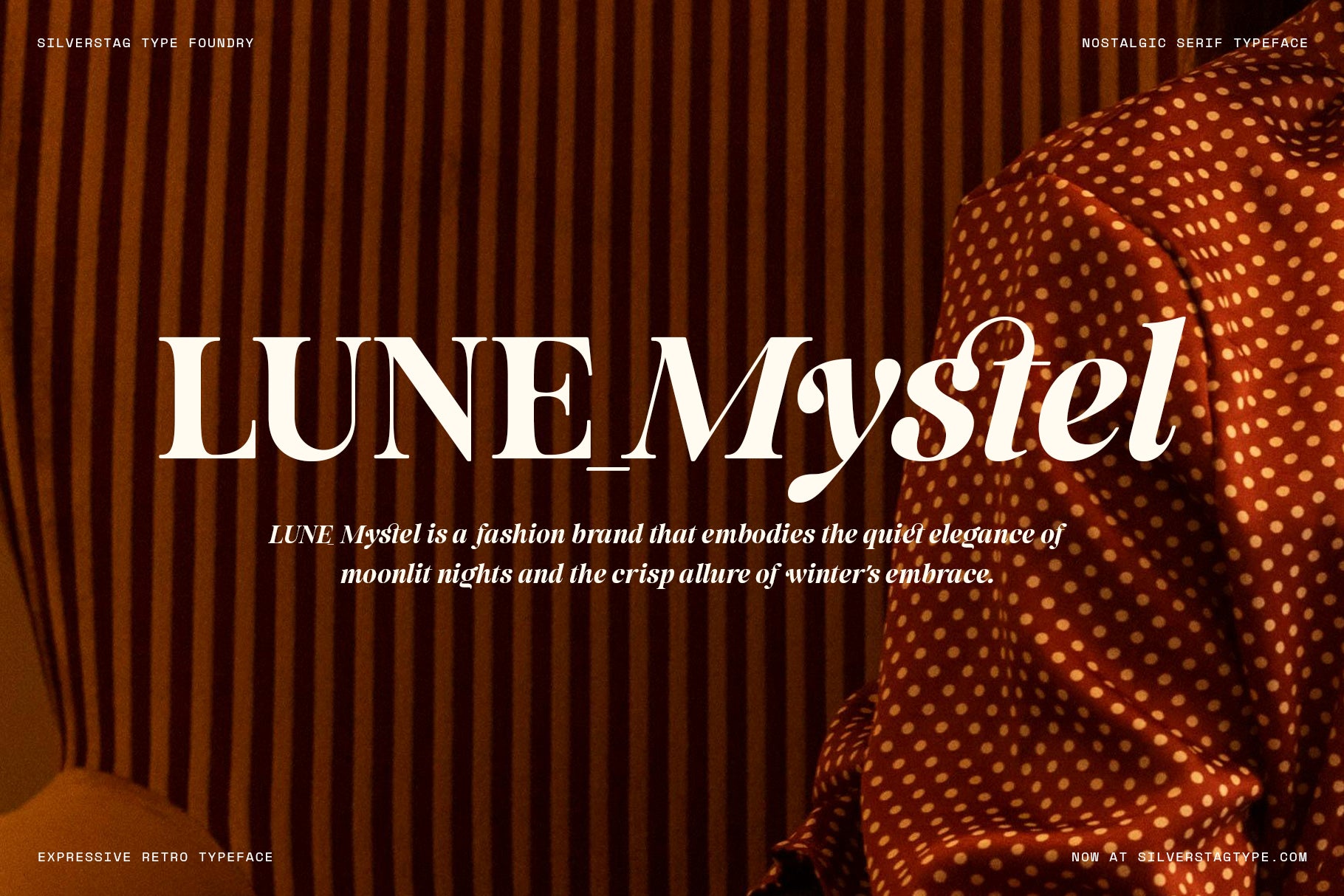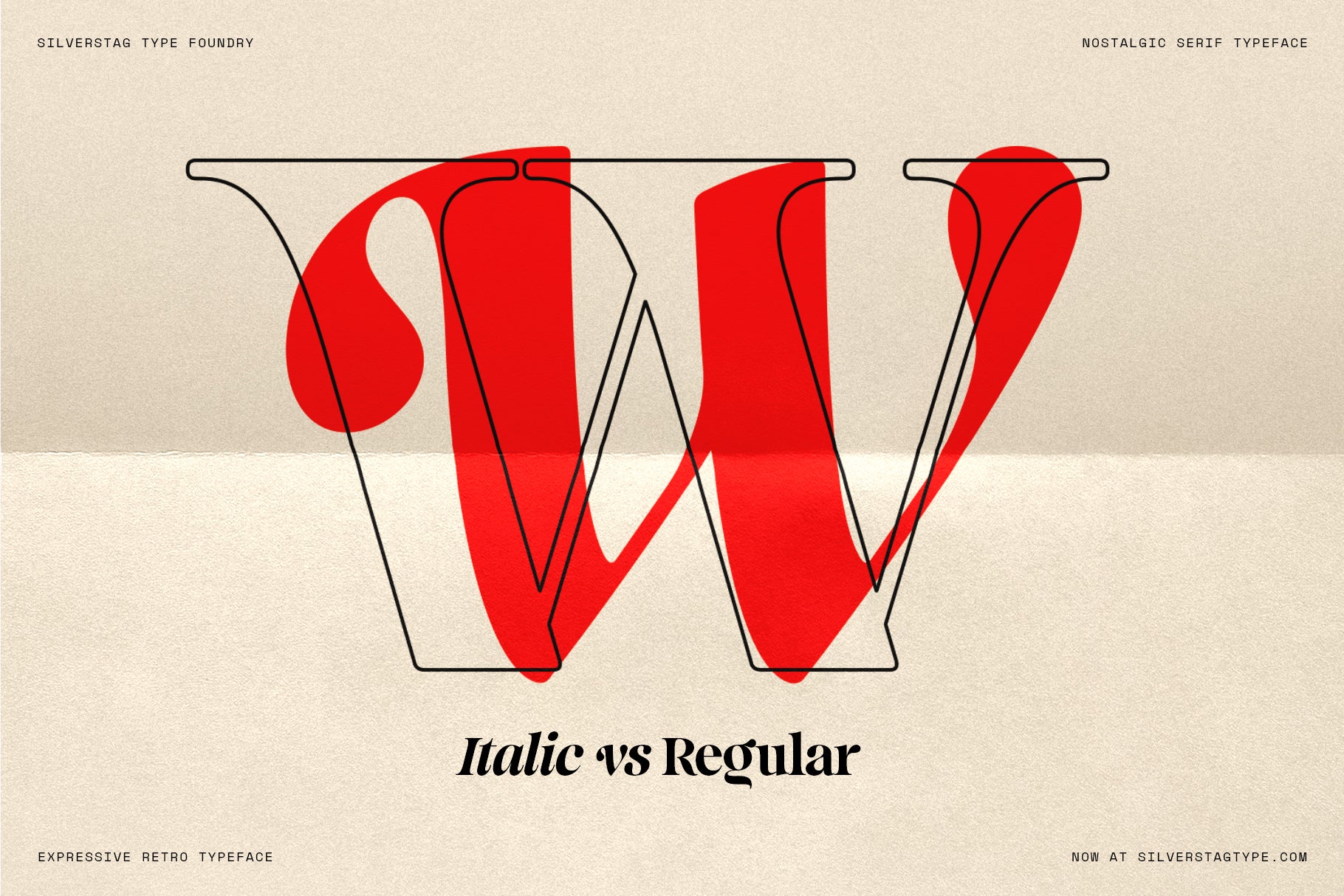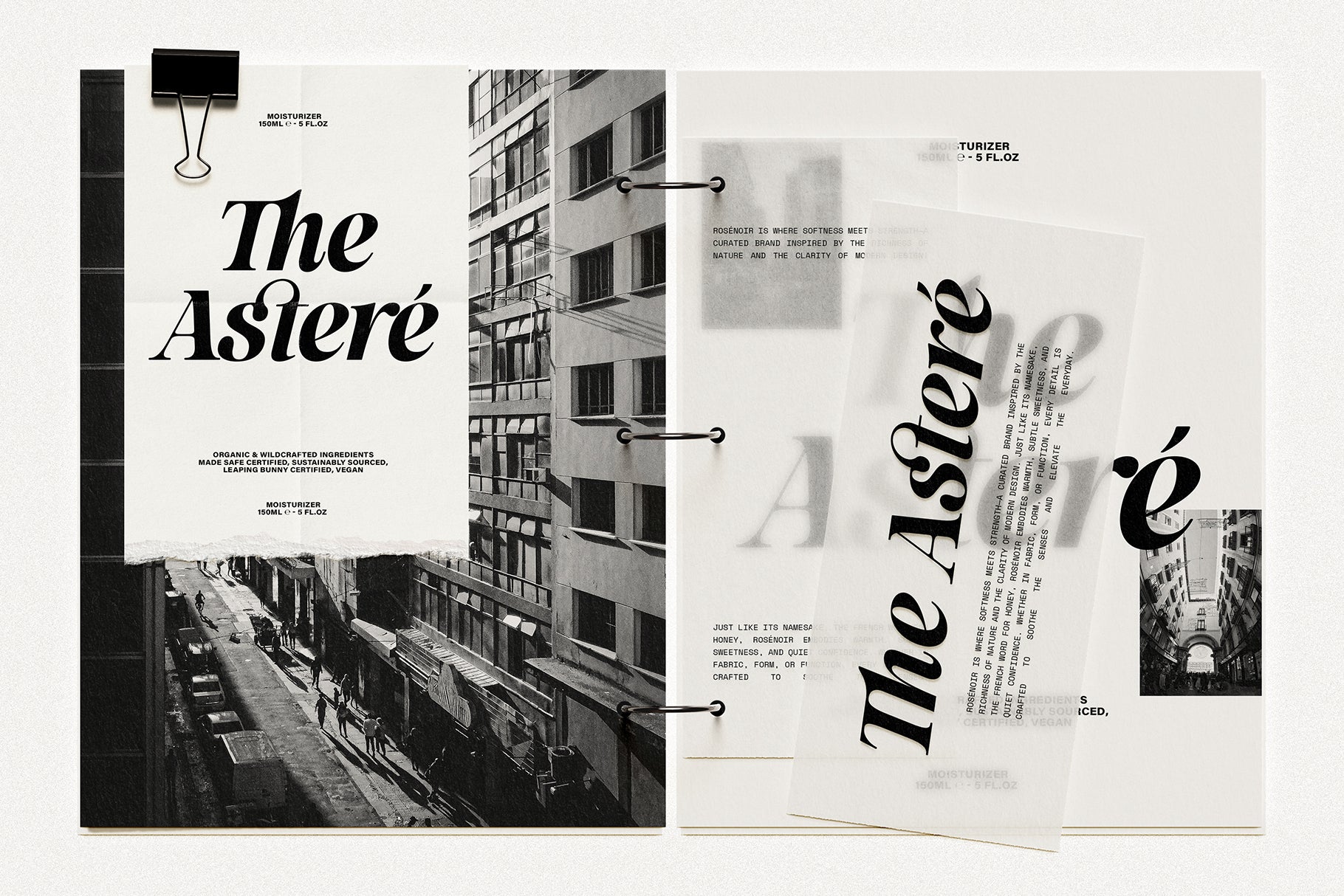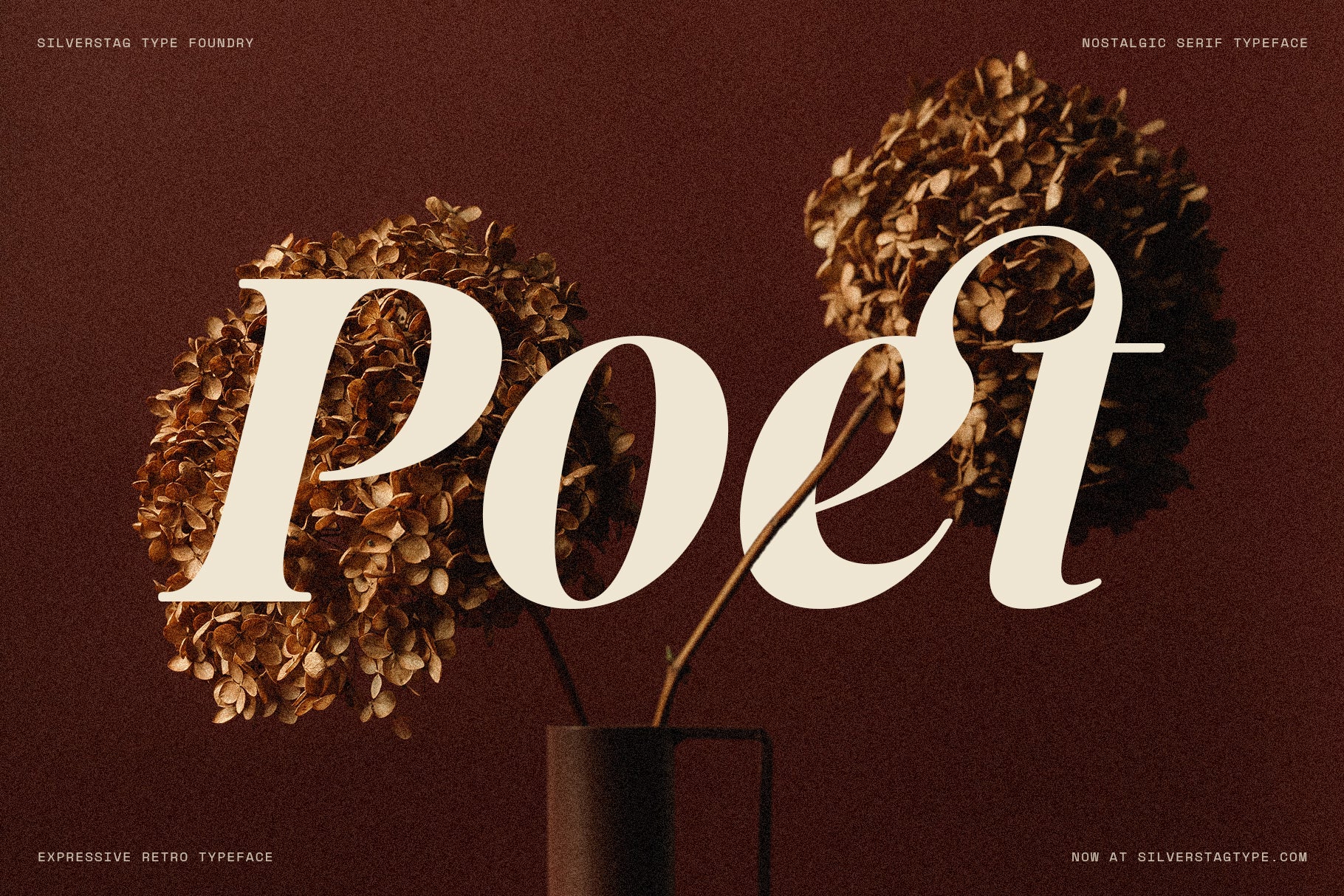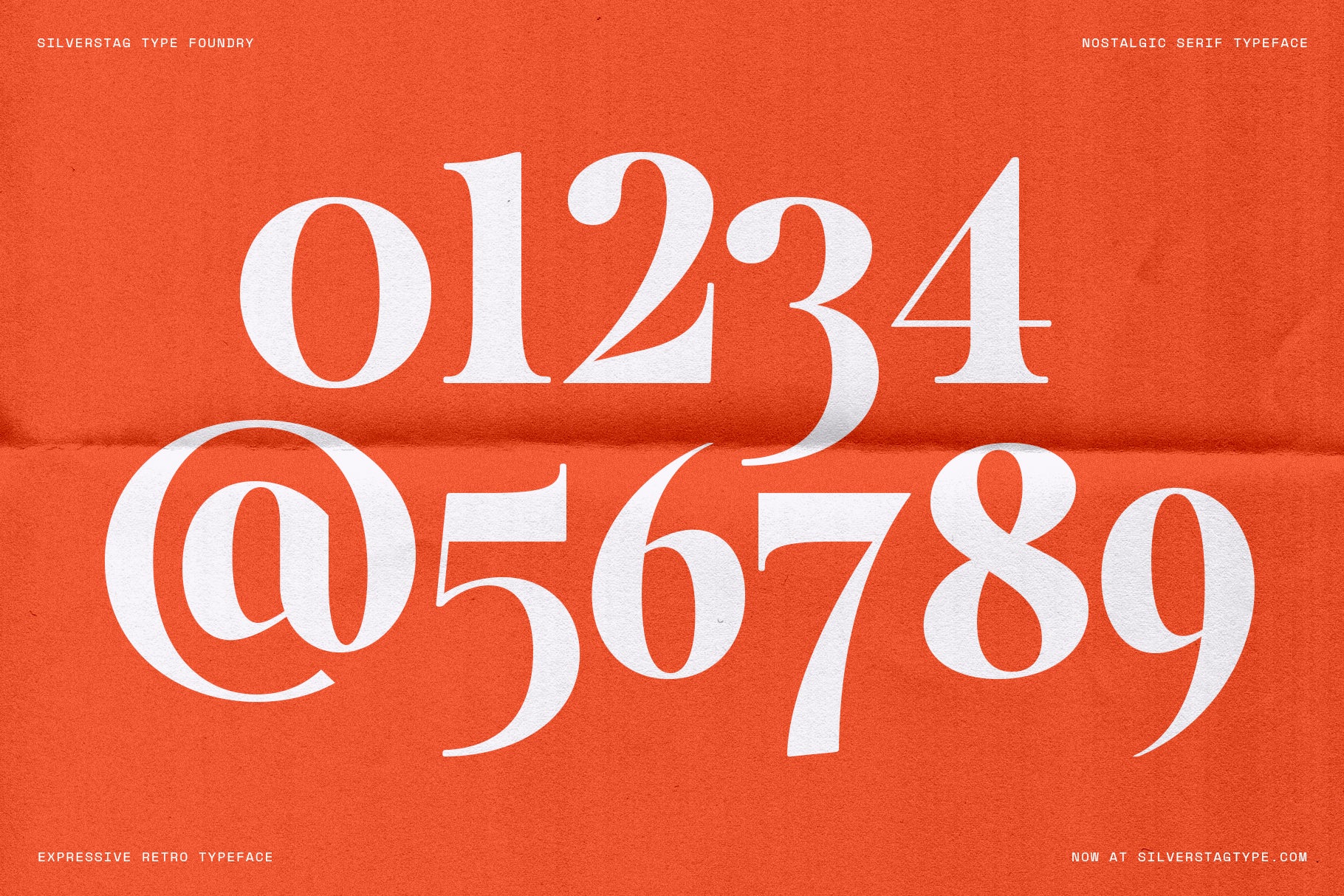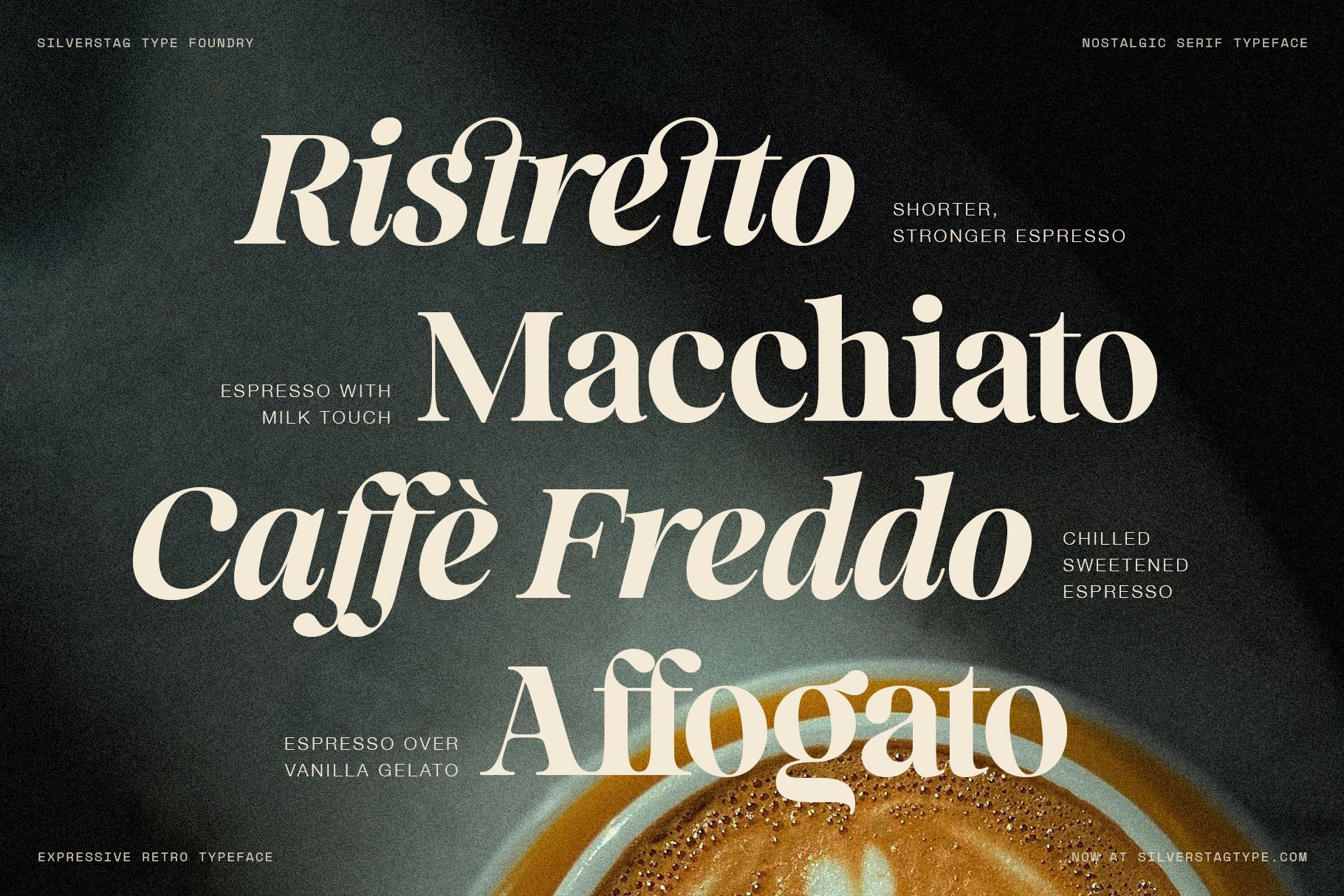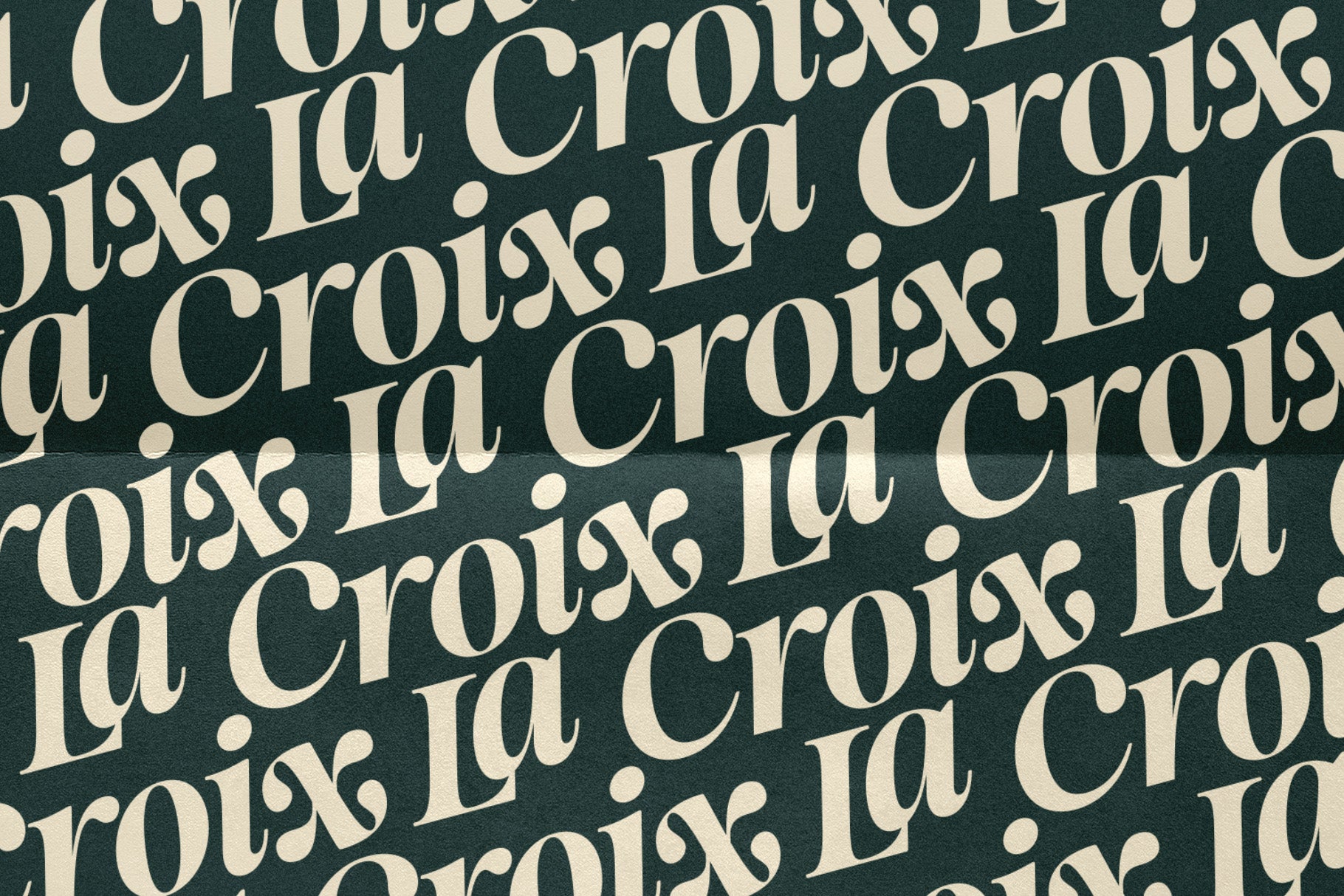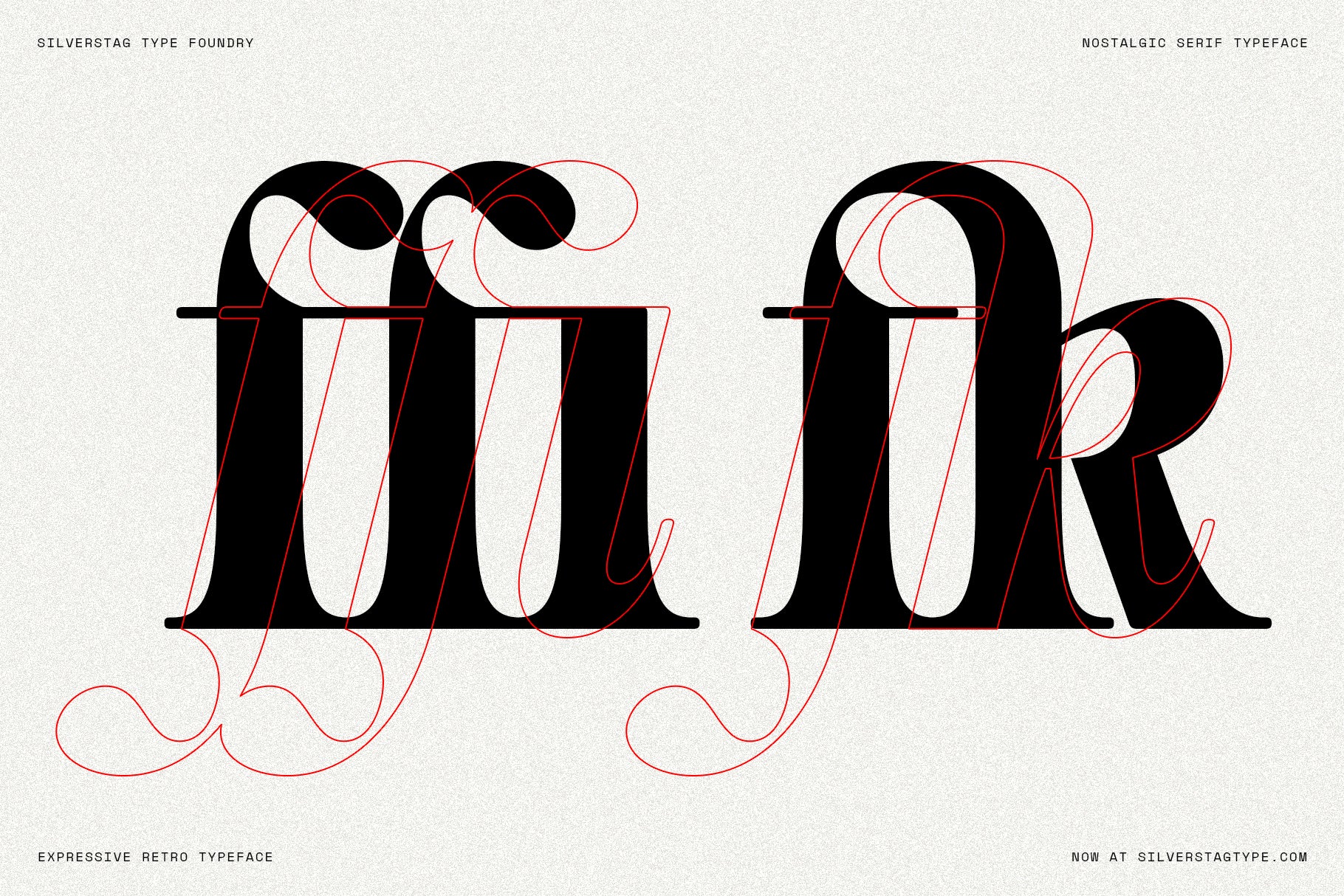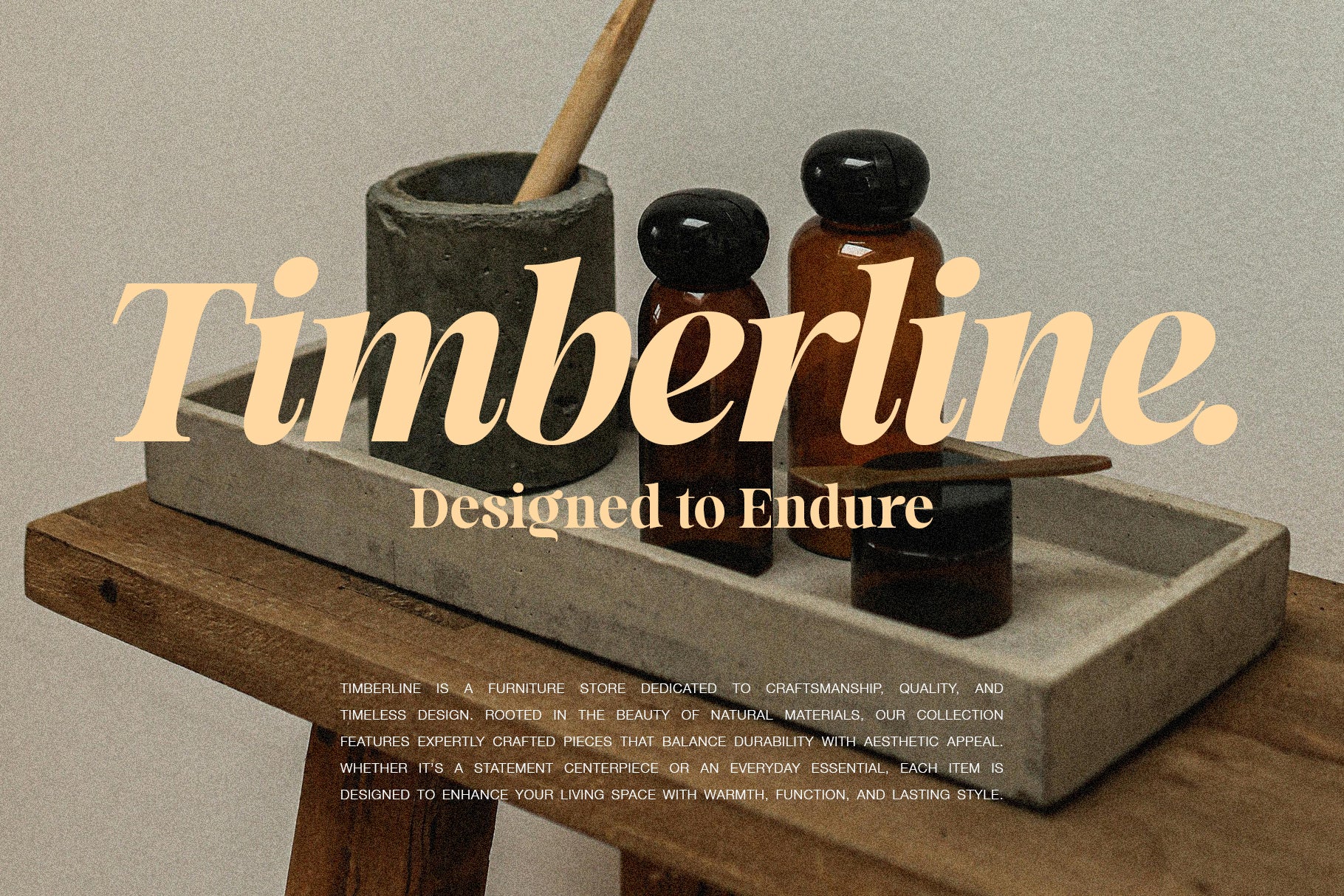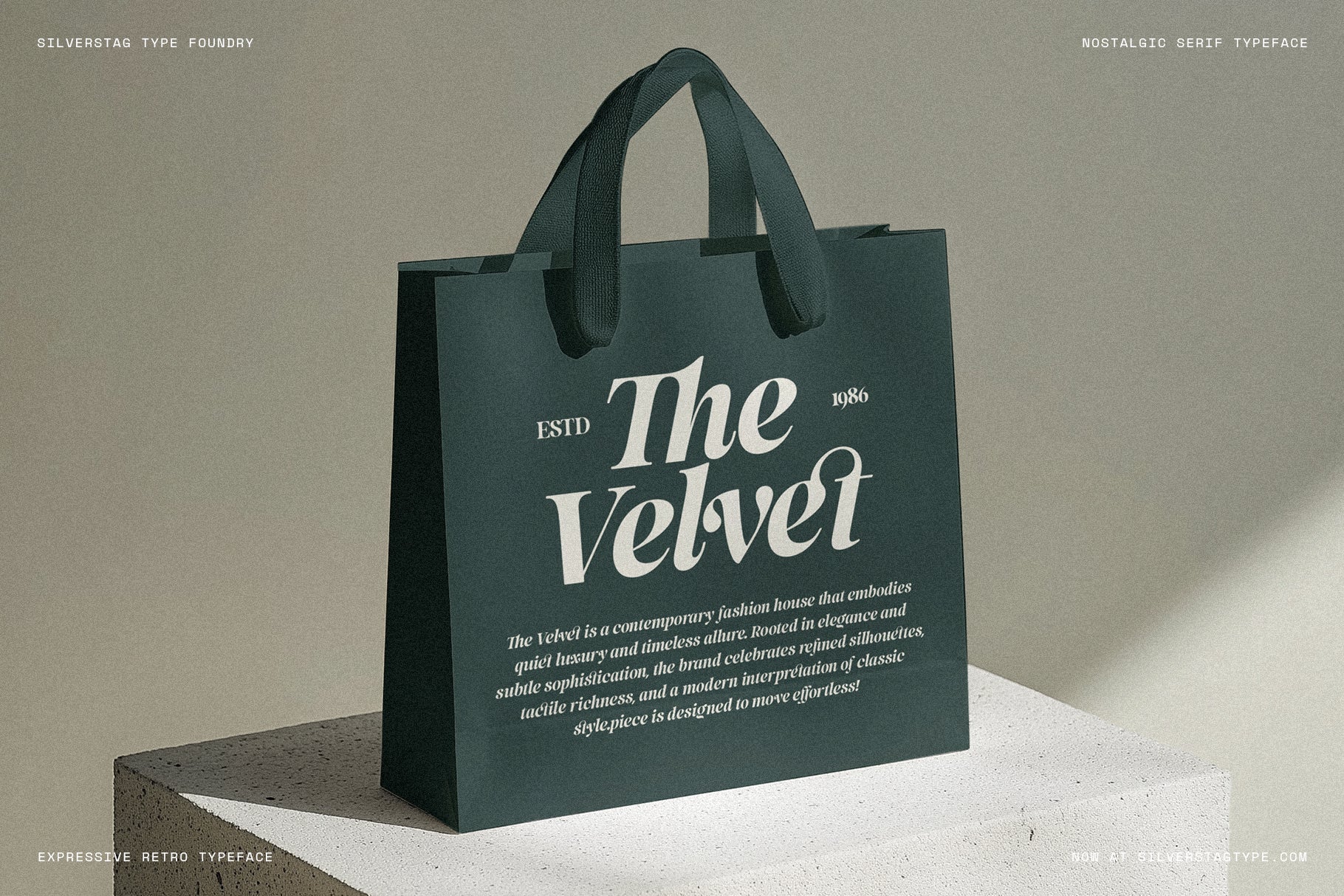
SLTF La Mystère - High Contrast Serif Font for Editorial Design
SLTF La Mystère is a bold serif typeface that balances classical beauty with editorial elegance. With its soft curves, sculpted serifs, and high contrast strokes, La Mystère was crafted to stand out in refined layouts and storytelling-driven designs.
It comes in two distinct styles – Regular and Italic – and is rich with expressive details that make it ideal for magazines, book covers, fashion branding, elegant headlines, and upscale packaging. This font isn’t about shouting. It’s about commanding attention through quiet confidence.
Whether you’re typesetting a modern editorial spread or elevating a luxury brand, La Mystère delivers a timeless yet contemporary presence.